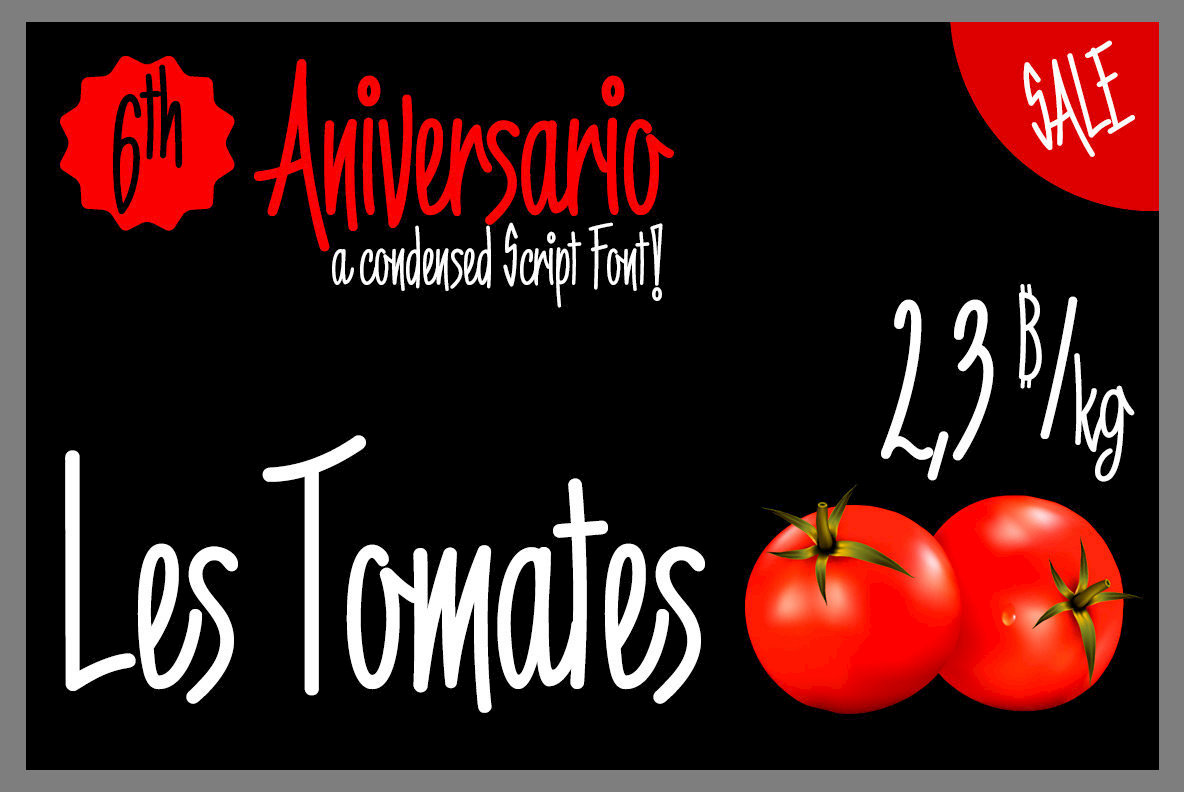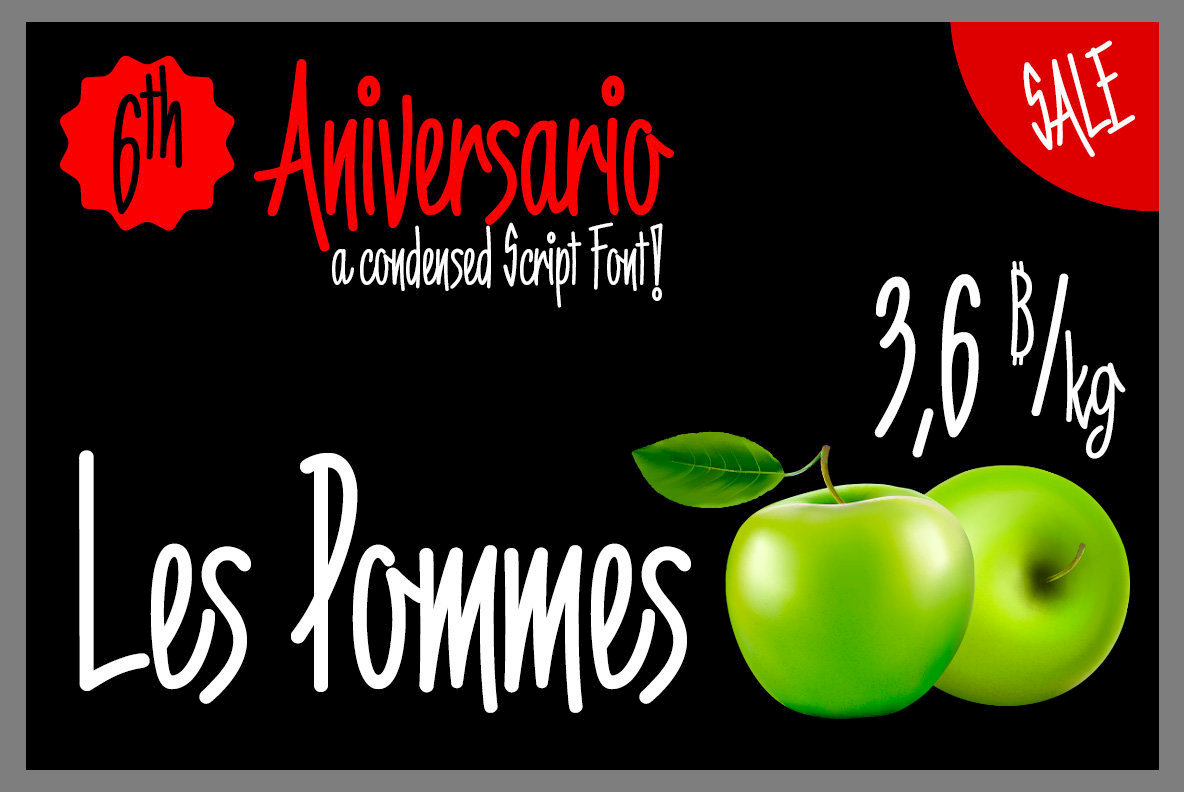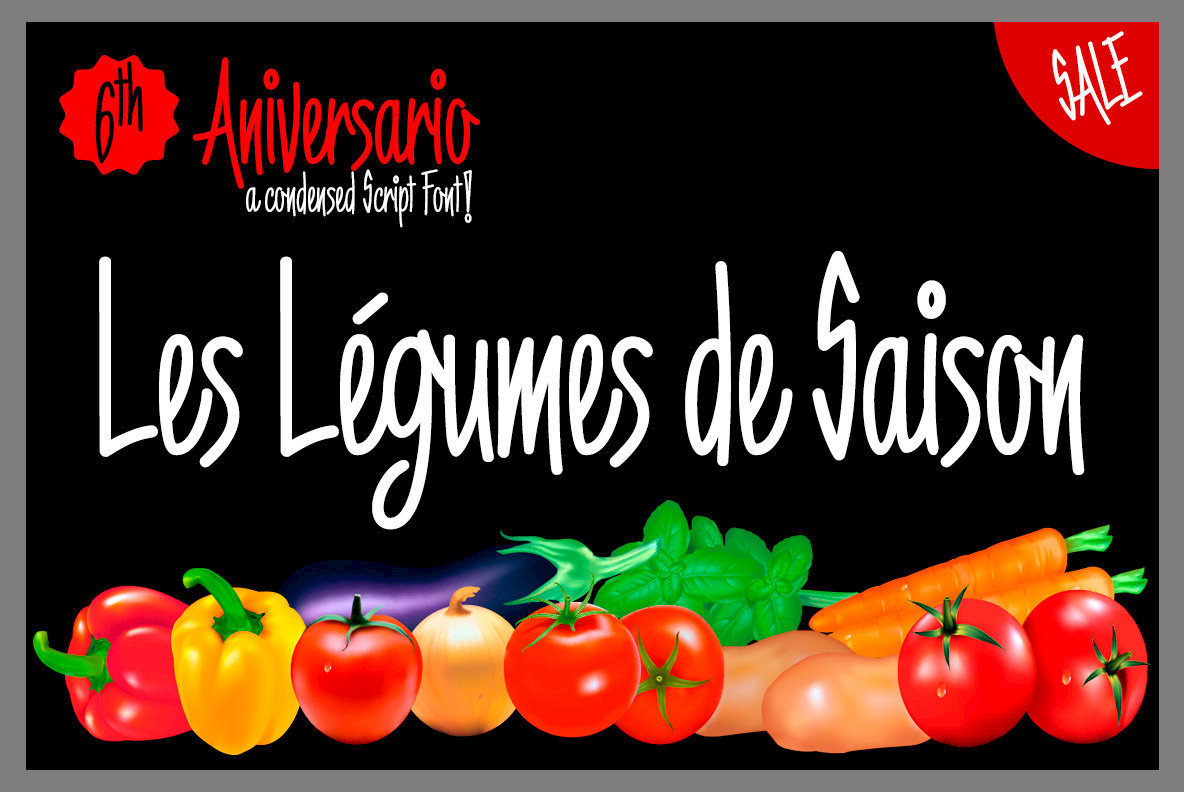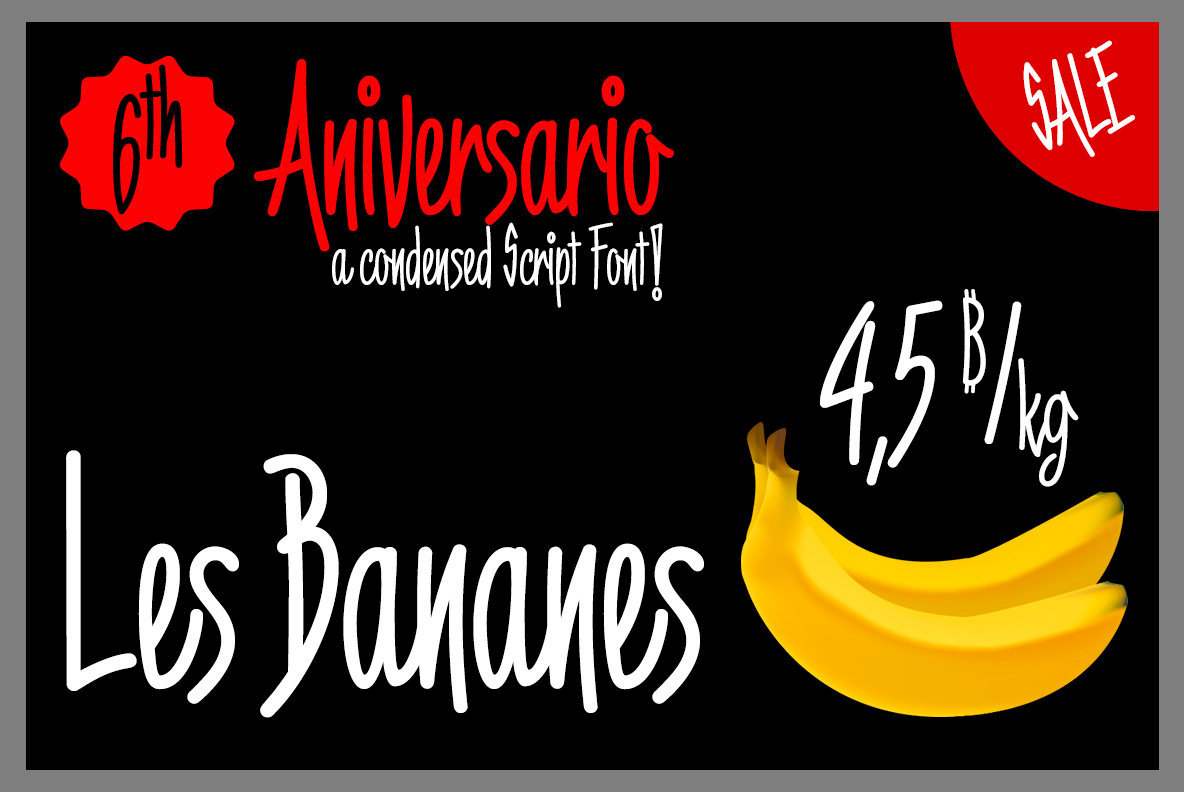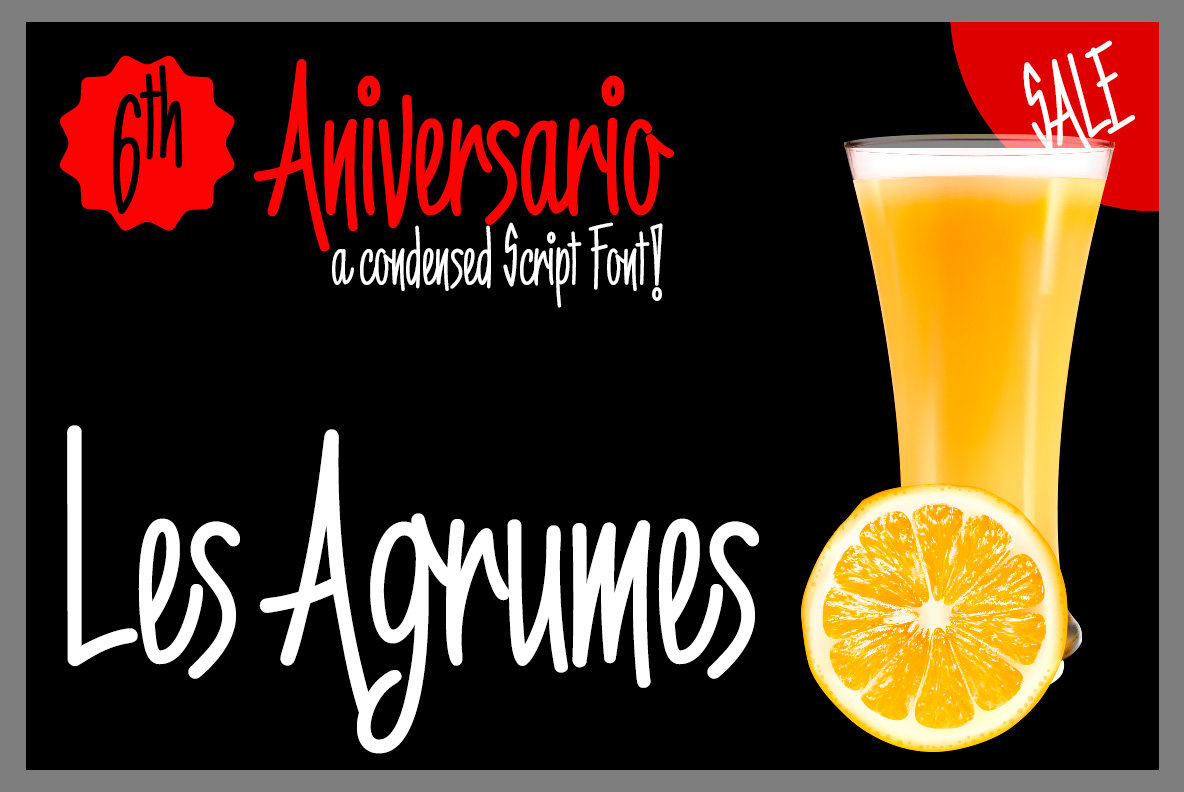
6th Aniversario Font
6th Aniversario
6th Aniversario is a rounded and condensed font design, perfect for advertising titles in posters, flyers and publication design.